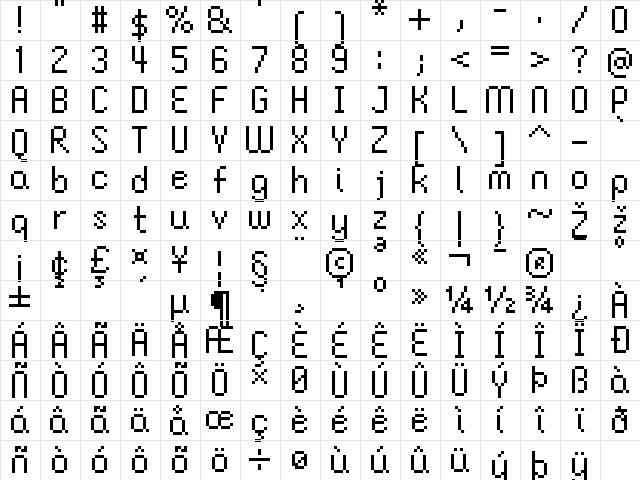
FFF Gardencity Regular
Design Context for FFF Gardencity Typeface
FFF Gardencity takes a measured approach to typography — its balanced proportions and neutral character make it a reliable workhorse for both digital and print work.